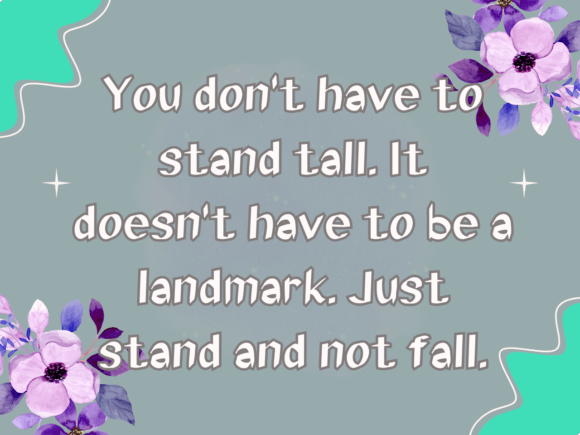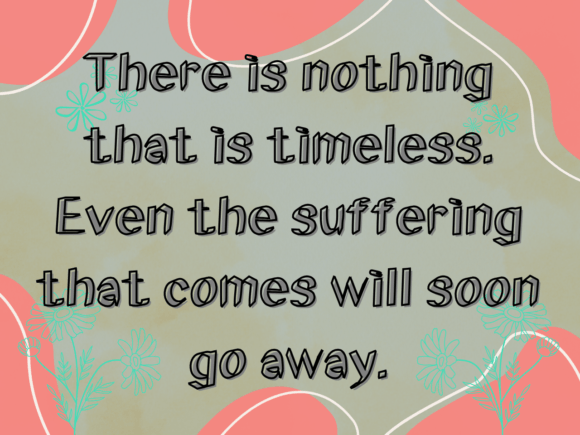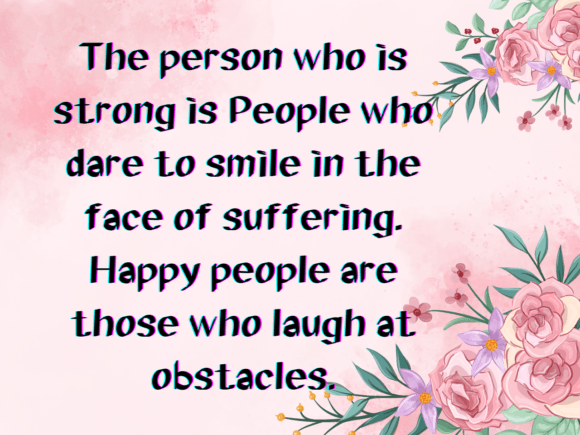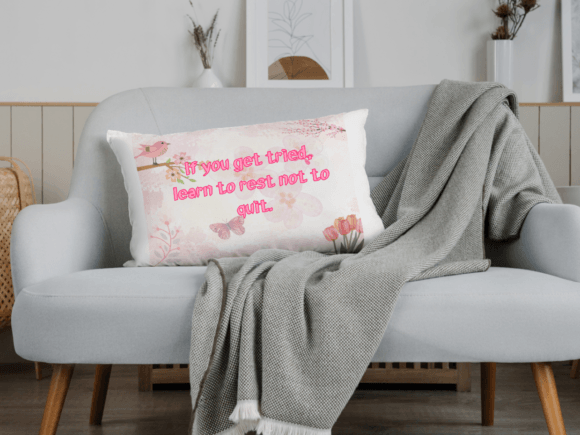
Morine Font – Free Download
Introduction to Morine Font
Morine is a cute and quirky slab serif font.
It will add an incredibly joyful touch to your designs Add this beautiful display font to each of your creative ideas and notice how it makes them stand out.
Key Features of Morine Font
Why Choose Morine Font?